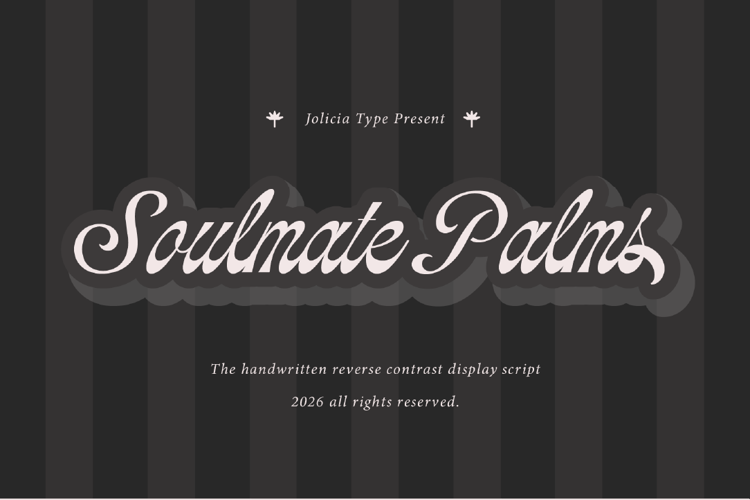
Soulmate Palms Font
Royale Victoria is an expressive handwritten script font with rough
textured strokes and elegant handcrafted details. Inspired by
vintage sign painting and modern brush lettering, it features
flowing curves, organic movement, and stylish swashes. Perfect
for branding, logos, packaging, wedding invitations, editorial
designs, and social media graphics, Royale Victoria delivers a
warm, authentic, and sophisticated handwritten appearance.